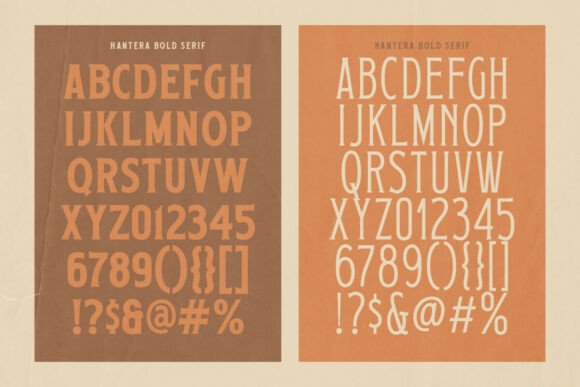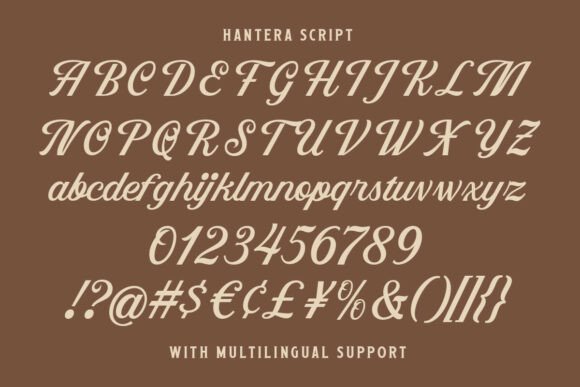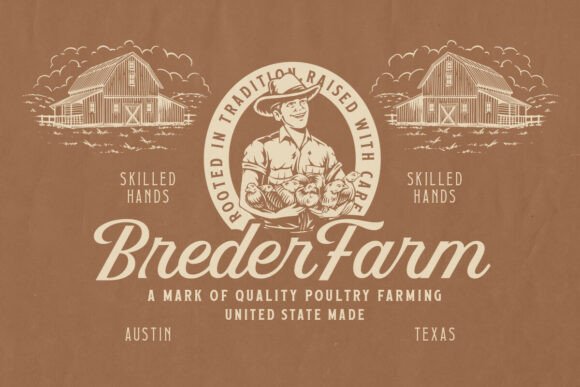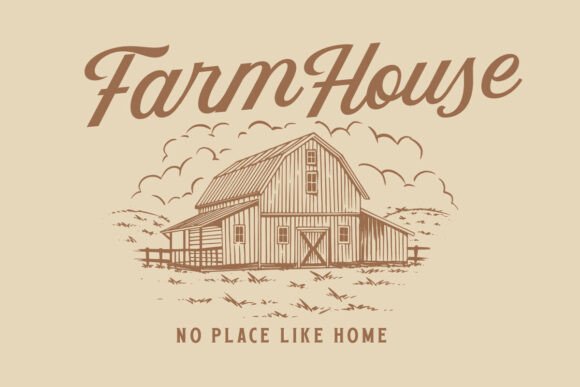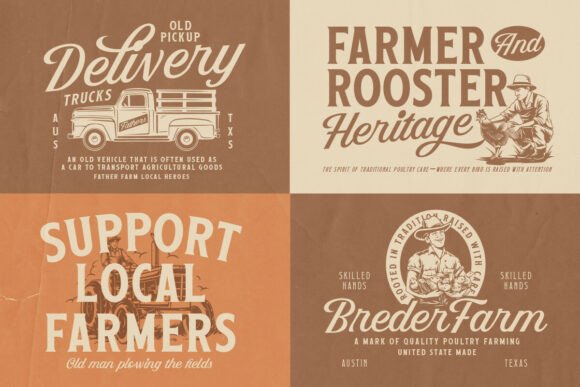
Introduction to Hantera Font
Hantera is a vintage-crafted typeface trio that blends elegant script curves with sturdy serif structure, creating a warm old-time charm inspired by classic farm signage and hand-lettered Americana.
Step into the world of vintage Americana with the Hantera font, a meticulously crafted family that brings the soul of the workshop to your screen This comprehensive Hantera typeface collection includes three distinct styles: a flowing, custom-style script and two robust serif versions.